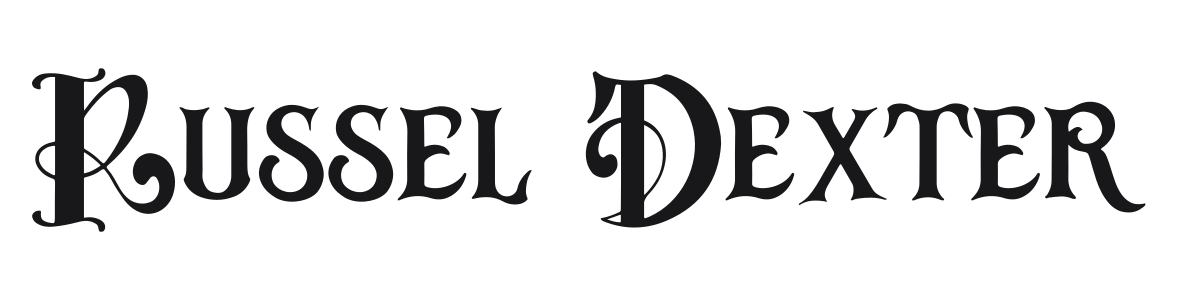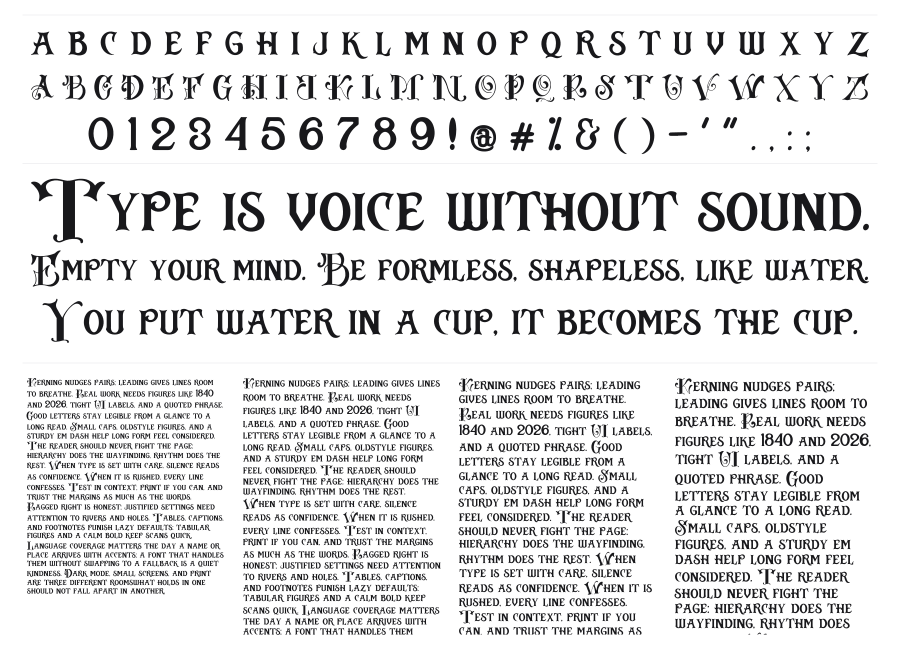
Russel Dexter
Russel Dexter is a bold display serif drawing from Art Nouveau and early 20th-century decorative traditions, with high stroke contrast and dramatically flared, organic terminals. The characters carry a gothic heaviness balanced by flowing curves, landing somewhere between medieval blackletter and theatrical Victorian display. It works at large sizes where its dense detail and weighty presence can fully register.